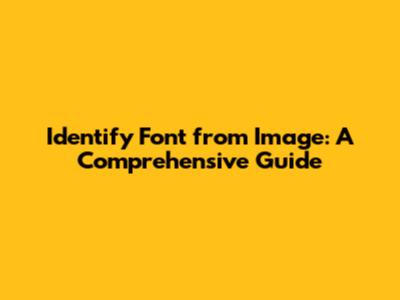
- Upload Your Image: Head over to the WhatTheFont website and upload the image containing the font you want to identify. Make sure the image is clear and the text is legible for best results.
- Identify Characters: The tool will automatically detect the characters in the image. You might need to help it out by correcting any misidentified letters. Accuracy here is key!
- Get Results: Click the magic button, and WhatTheFont will present you with a list of possible matches. It'll show you the font name, along with options to purchase or download (if available).
- Upload Your Image: Upload the image containing the font you're curious about.
- Adjust and Crop: The tool allows you to adjust and crop the image to focus on specific text areas. This is particularly useful if your image contains multiple fonts.
- Character Recognition: Like WhatTheFont, you might need to manually correct any misidentified characters.
- Discover Fonts: The tool then searches its database and presents you with a list of potential matches, along with links to purchase or download the fonts.
- Upload Your Image: Upload the image of the font you want to identify.
- Identify and Crop: The tool will ask you to identify the individual characters and crop the image accordingly. This step is crucial for accurate matching.
- Find Your Font: Matcherator then searches its database of free fonts and provides you with potential matches.
- Serif: The little decorative strokes at the ends of letters (think Times New Roman).
- Sans-serif: Fonts without serifs (like Arial or Helvetica).
- X-height: The height of the lowercase 'x,' which affects the overall appearance of the font.
- Ascender: The part of a lowercase letter that extends above the x-height (like in 'b' or 'h').
- Descender: The part of a lowercase letter that extends below the baseline (like in 'g' or 'p').
- Is it a serif or sans-serif font?
- Are the letters wide or narrow?
- Are the strokes thick or thin?
- Are the corners rounded or sharp?
- Are there any unusual or distinctive features?
- Use a Clear Image: The clearer the image, the better the chances of identifying the font accurately. Avoid blurry or low-resolution images.
- Crop the Image: Focus on the specific text you want to identify. Remove any unnecessary elements from the image.
- Correct Character Recognition: Pay attention to the character recognition results and correct any misidentified letters.
- Try Multiple Tools: Don't rely on just one tool. Try several different font identification tools to get the best results.
- Be Patient: Font identification can be a time-consuming process. Don't get discouraged if you don't find the font right away.
Hey guys! Ever stumbled upon a font that just screams perfect for your project but you have absolutely no clue what it is? It's a common problem, and luckily, in today's digital world, figuring out a font from just an image is totally doable. This guide will walk you through several methods and tools that'll turn you into a font-identifying wizard. No more font envy – let’s get started!
Why Identify Fonts from Images?
Before we dive into the 'how,' let's quickly chat about the 'why.' Identifying fonts from images is super practical in a bunch of scenarios. Imagine you’re a designer needing to match a font in an existing logo, or a marketer trying to maintain brand consistency across all your materials. Maybe you're just a font enthusiast who wants to know the name of that super cool typeface you saw on a poster. Whatever the reason, knowing how to ID a font is a valuable skill.
Brand Consistency: Maintaining a consistent look and feel across all your branding materials is crucial. If you've lost the original font file or don't know which font was used initially, identifying it from an image ensures that everything aligns perfectly. This attention to detail builds a professional and trustworthy image for your brand.
Design Inspiration: Finding a font you love in an image can spark amazing design inspiration. Identifying it allows you to use it in your own projects or explore similar fonts that might be even more fitting. It's like unlocking a whole new world of typography possibilities.
Website Development: When recreating a website design from an image or a screenshot, identifying the fonts used is essential for accurate replication. Using the correct fonts ensures that the new website looks and feels just like the original, maintaining the intended user experience.
Academic and Research Purposes: Sometimes, identifying fonts is necessary for academic research or historical analysis. Knowing the typeface used in old documents or publications can provide valuable insights into the design trends and cultural context of the time. It adds another layer of understanding to your research.
Method 1: Online Font Identification Tools
Okay, let’s get to the fun part! Online font identification tools are your best friends here. These nifty tools use advanced algorithms to analyze the characters in an image and compare them against vast databases of fonts. Here are a few of the top contenders: